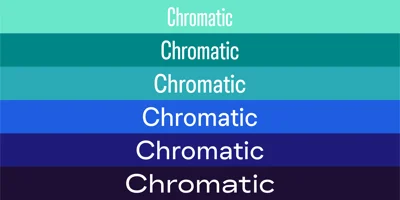
Chromatic Font
Chromatic Font is perfect for vibrant rainbow festival promotions, colorful art supply store branding, dynamic color printing company logos, brilliant paint manufacturer advertising, spectrum lighting design presentations, vivid photography studio marketing, bright color therapy center signage, chromatic art gallery exhibitions, rainbow pride event graphics, and luminous creative agency identities. Its brilliant chromatic character makes it ideal for projects requiring color vibrancy and spectrum authenticity.
What makes Chromatic Font exciting is its dazzling embodiment of color spectrum brilliance and chromatic innovation with vibrant letterforms and rainbow-inspired characteristics that capture the essence of color theory and spectrum excellence. The font features luminous proportions, spectrum-inspired details, and chromatic character construction that create authentic colorful atmosphere and vibrant appeal. Its brilliant personality brings energy and visual excitement to contemporary designs while maintaining the clarity essential for color communications and spectrum presentations. The carefully crafted chromatic elements ensure color accuracy while preserving the distinctive character that embodies the essence of spectrum innovation and color excellence.
Chromatic Font comes in multiple spectrum variations including Light, Regular, Medium, Bold, and Prism styles. Each family member maintains the distinctive chromatic character while offering comprehensive flexibility for color typography and spectrum brand system development. The complete font family includes alternate characters, color symbols, and spectrum decorative elements that provide extensive tools for creating immersive chromatic design experiences and authentic color brand storytelling.
Whether you're developing color-focused brands, spectrum organizations, or vibrant creative projects, Chromatic Font provides the brilliant energy needed to communicate with color enthusiasts and creative audiences who appreciate spectrum innovation and chromatic excellence. The font's vibrant appeal resonates with artists, color professionals, and creative innovators seeking authentic chromatic credibility and spectrum sophistication. Its comprehensive character set includes color symbols and spectrum marks, making it perfect for creating complete chromatic brand systems and memorable color storytelling across diverse creative applications and vibrancy-focused design projects that celebrate color theory and spectrum excellence.